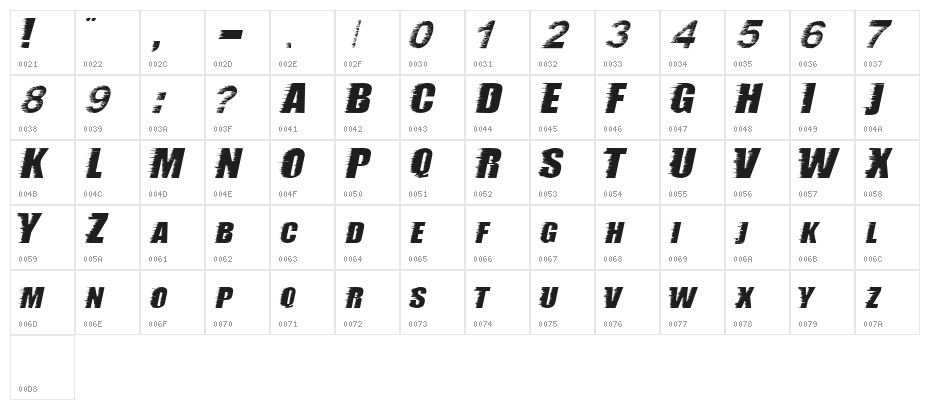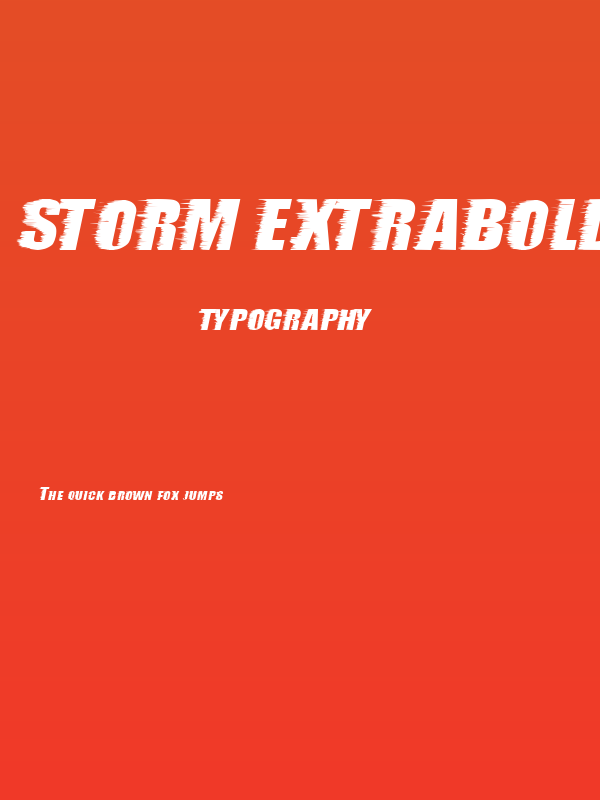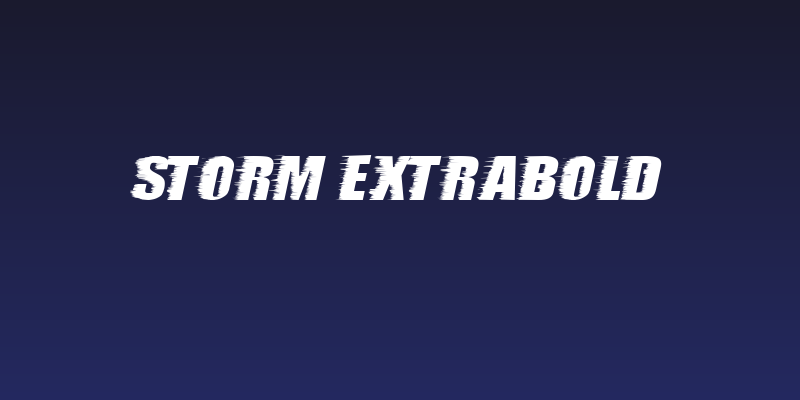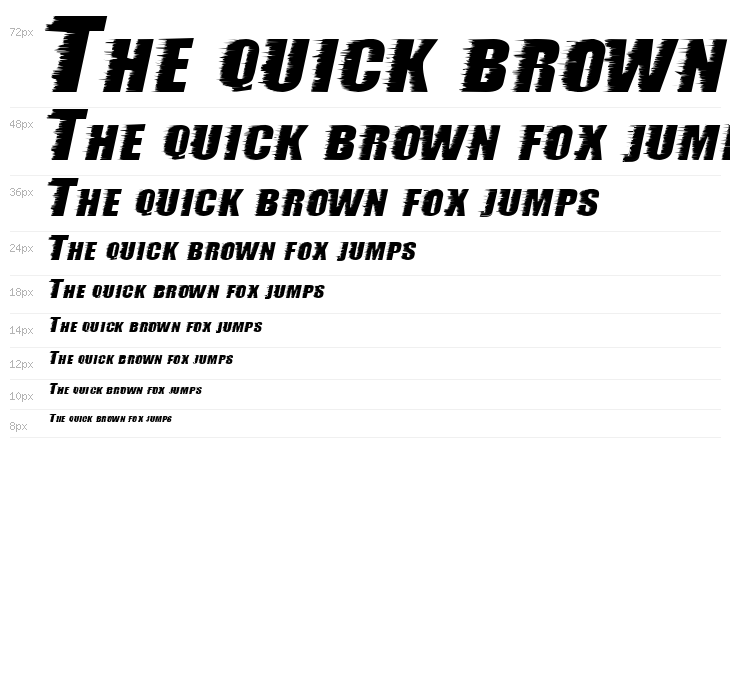
storm ExtraBold Font
storm ExtraBold Description
This font features a bold and dynamic style with a distinct slashed effect that gives the impression of movement and energy. The uppercase and lowercase letters are designed with a consistent width, creating a uniform appearance across the board. The numbers and special characters maintain the same energetic style, making them stand out with their unique design. The font's high contrast in stroke thickness adds to its boldness, making it ideal for attention-grabbing headlines or impactful logos. Its decorative nature suggests a modern and edgy aesthetic, suitable for projects that require a strong visual impact.
| Proposed Projects | Ideal for sports branding, action movie posters, dynamic advertisements, and edgy graphic design projects. |